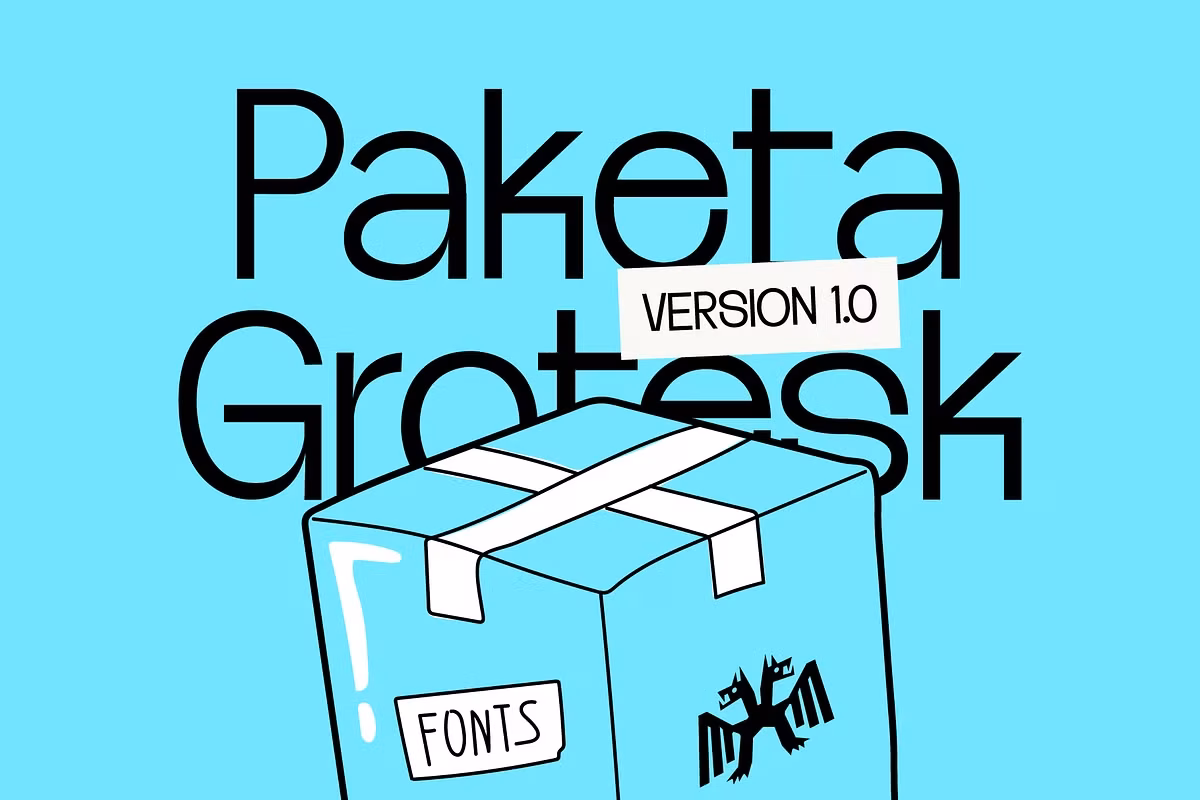
Paketa – Grotesk Type Free Download is a clean and contemporary sans-serif typeface rooted in classic grotesk tradition. With its balanced proportions, sharp edges, and minimalist elegance, this font is perfect for branding, editorial layouts, tech startups, websites, packaging, and professional presentations that demand clarity and style.
Paketa offers versatility across weights and sizes, making it suitable for both headlines and body text. Its modern yet timeless design allows it to blend seamlessly into a wide range of design aesthetics—from corporate to creative. You can test it freely, but a commercial license is required for any monetized or client-based projects.
Level up your typography with Paketa – Grotesk Type Free Download and bring clean, confident sophistication to your next project. It’s a must-have for designers who appreciate precision, function, and a modern design edge.